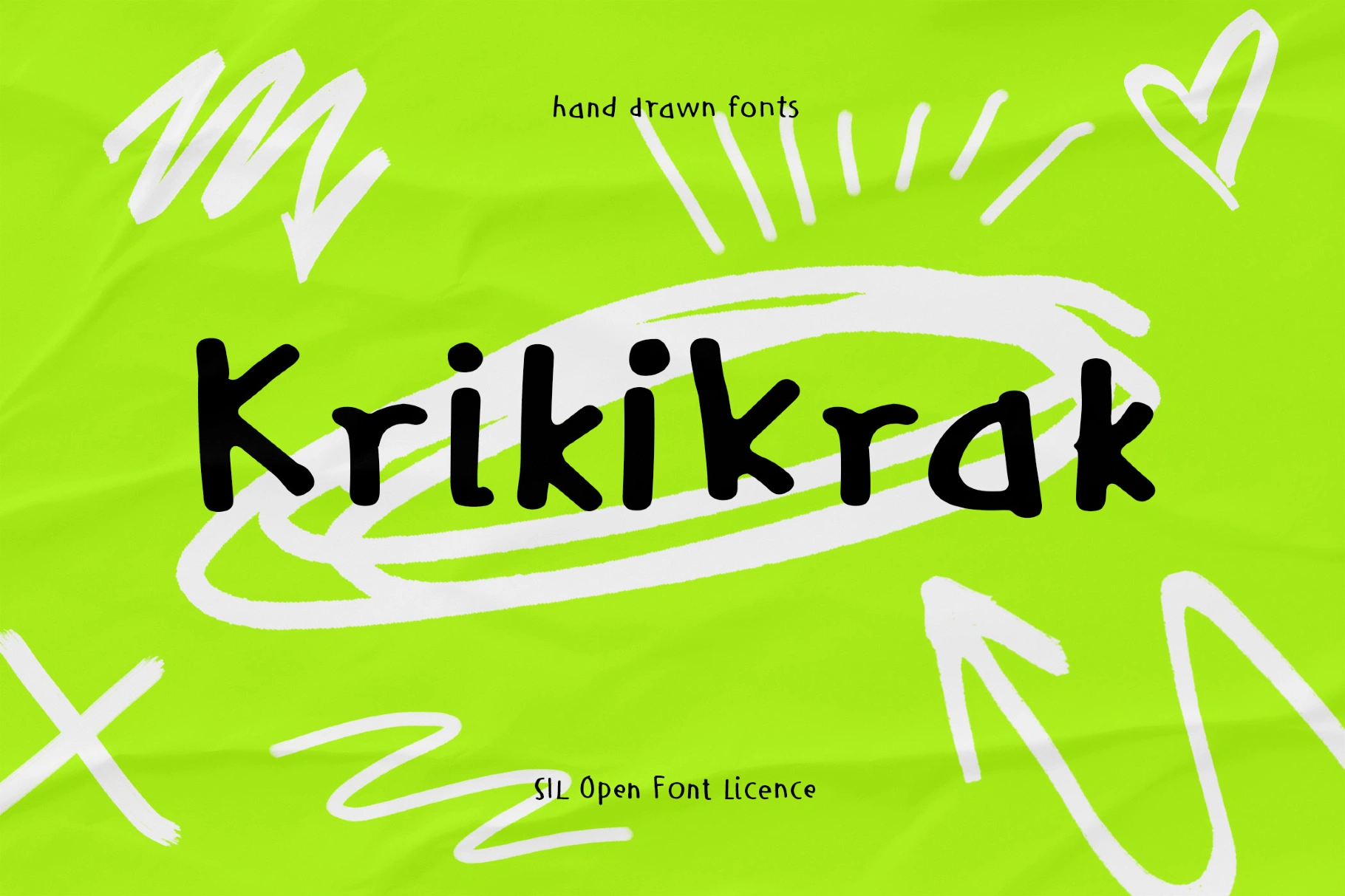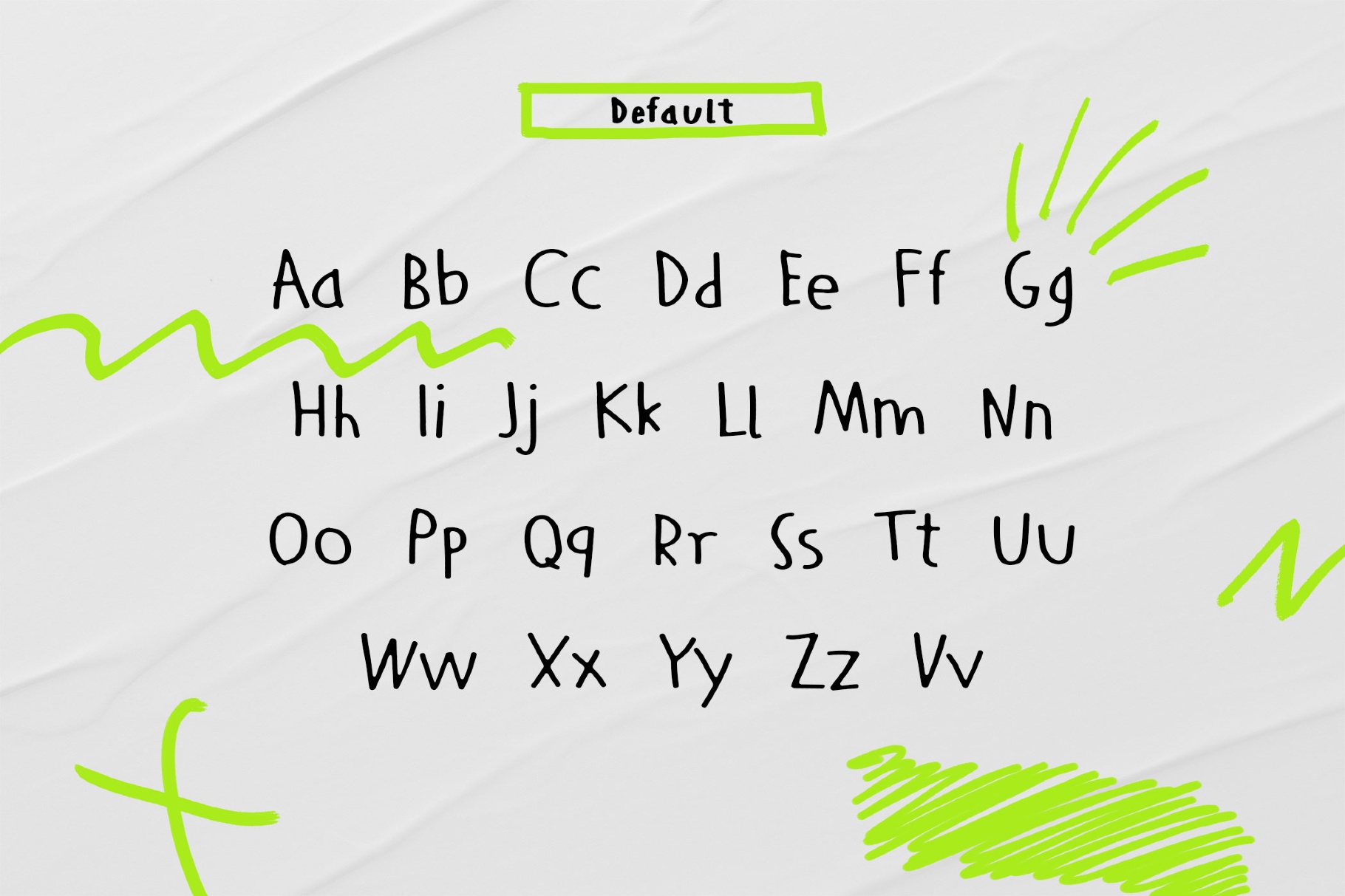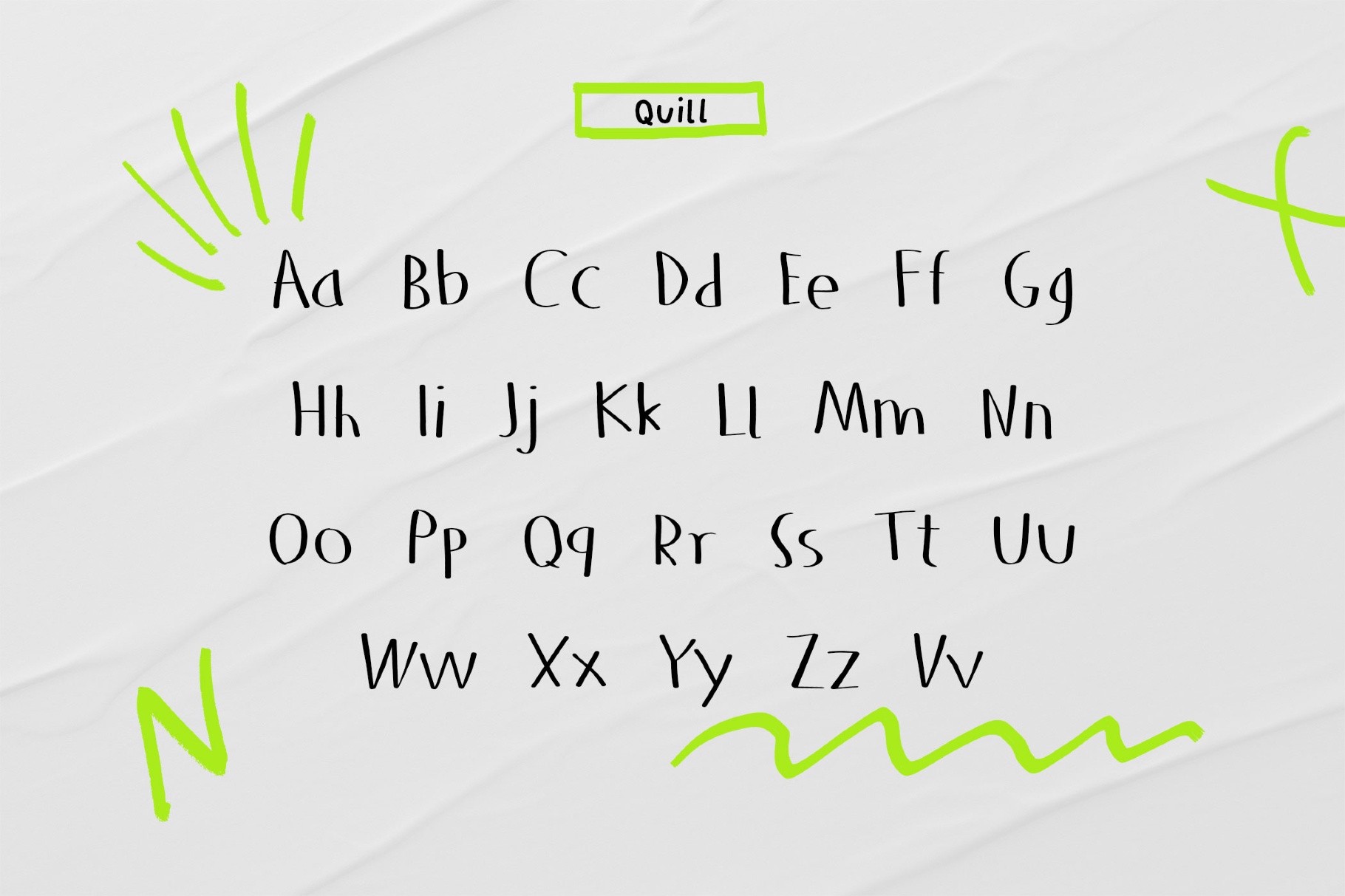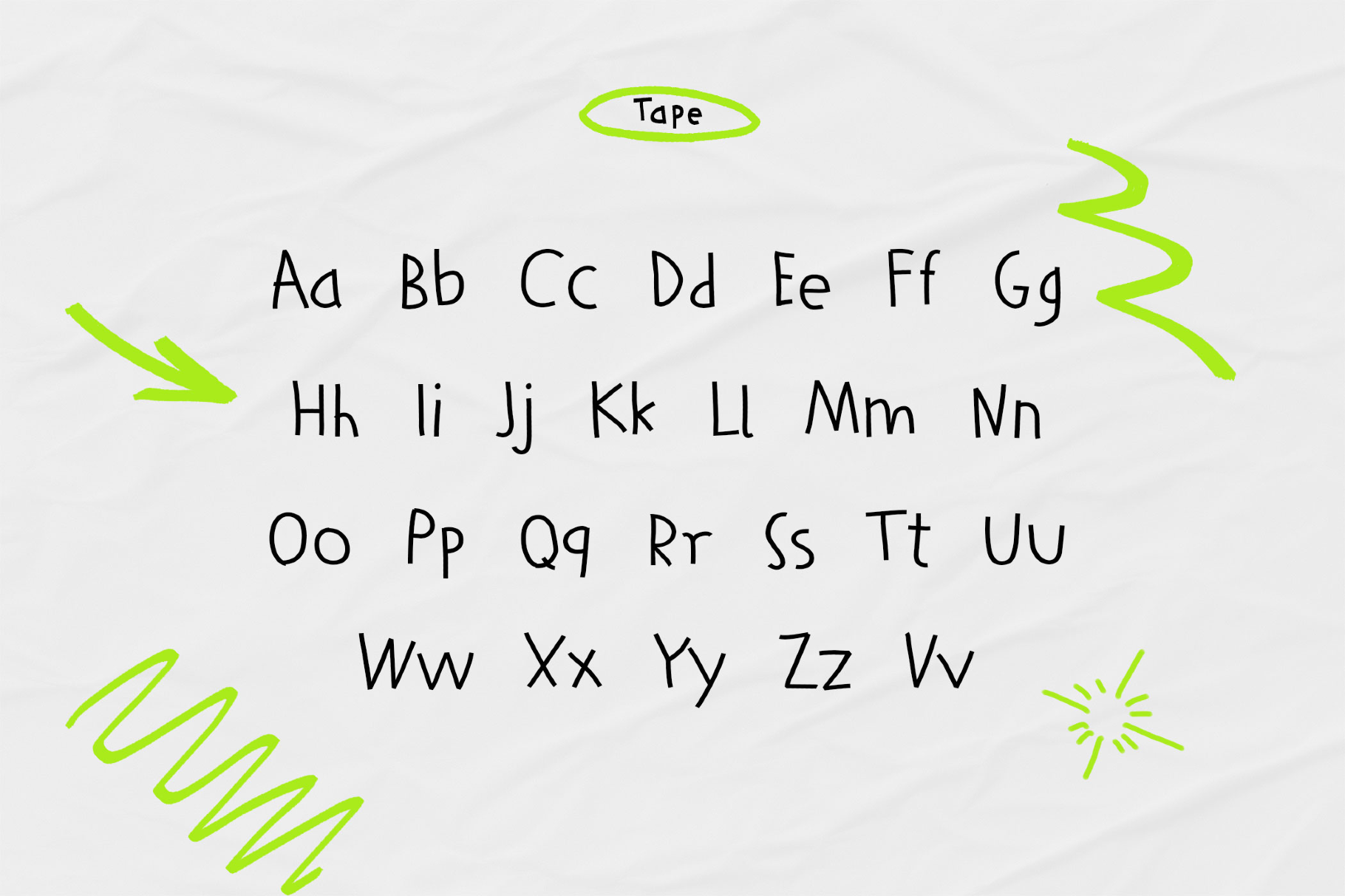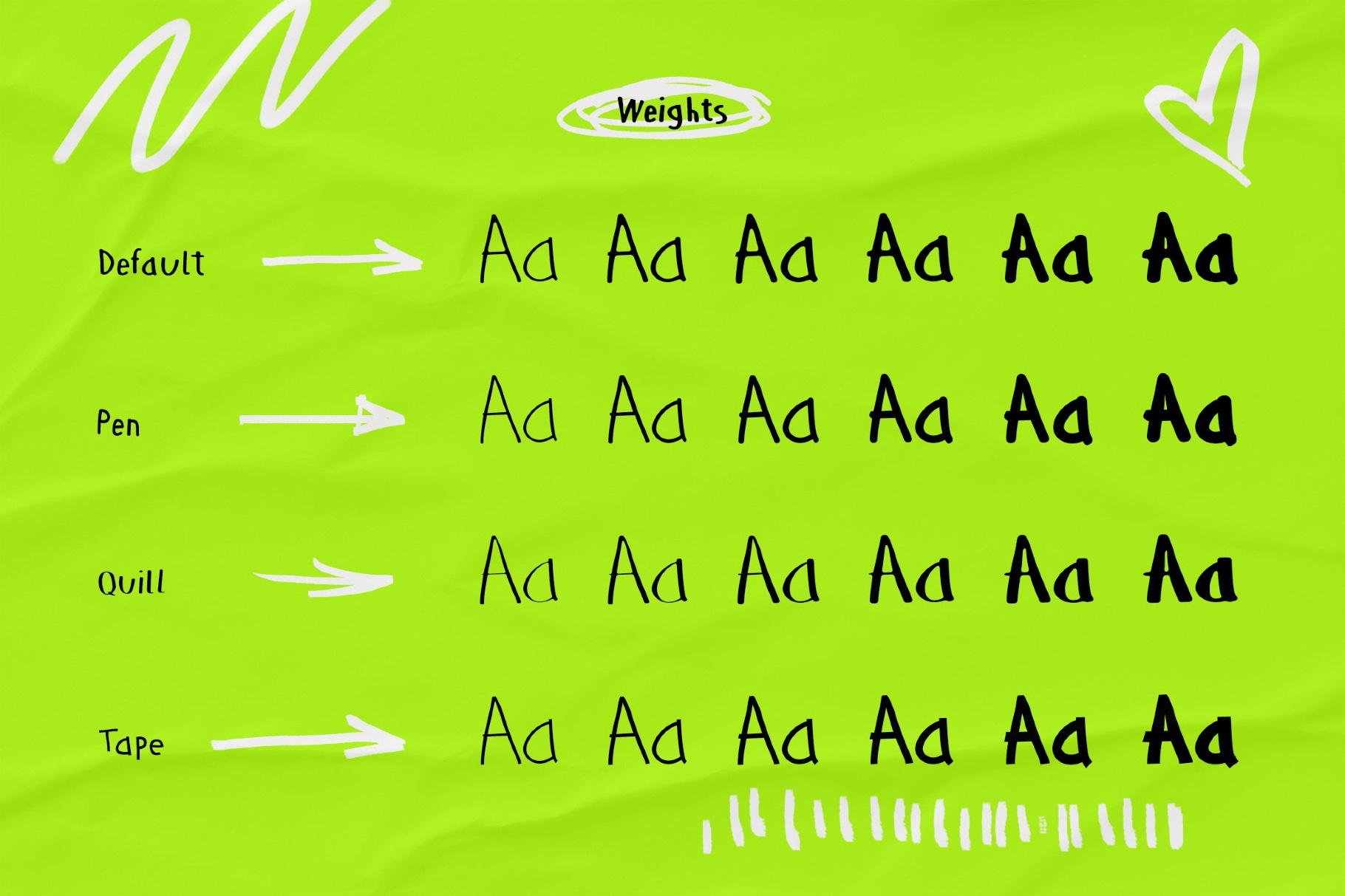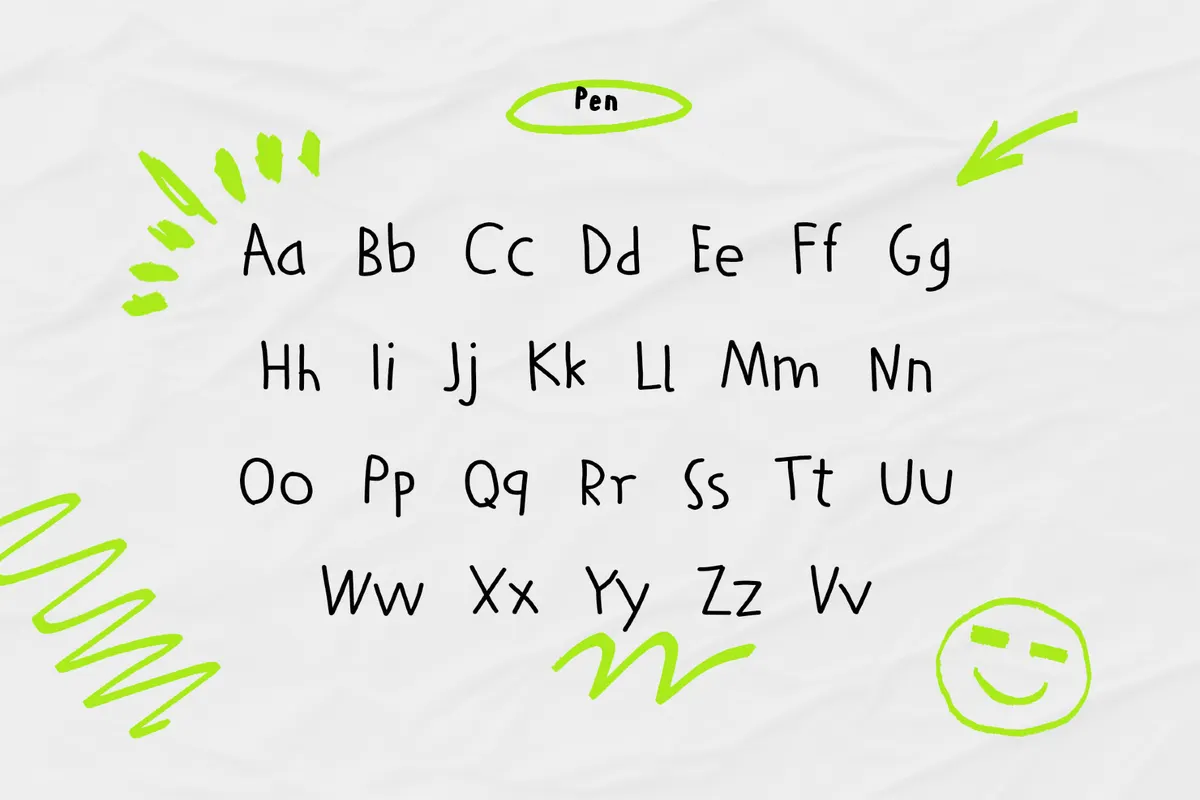
Krikikrak Typeface
Krikikrak is an entire poster font family which scrawls loose, hand-drawn letters influenced by rough-cut indie comic titles. Its bouncy, imperfect rhythm, uneven strokes, and childlike proportions work well for kid-focused branding, snack or toy packaging, classroom worksheets, posters, magazines, sticker sets, event flyers, and social media graphics.
- Four styles with 6 weights for each.
- Numbers, punctuation, dingbats, and symbols.
- Multilingual support across extended Latin scripts.
- Ligatures, stylistic alternates.